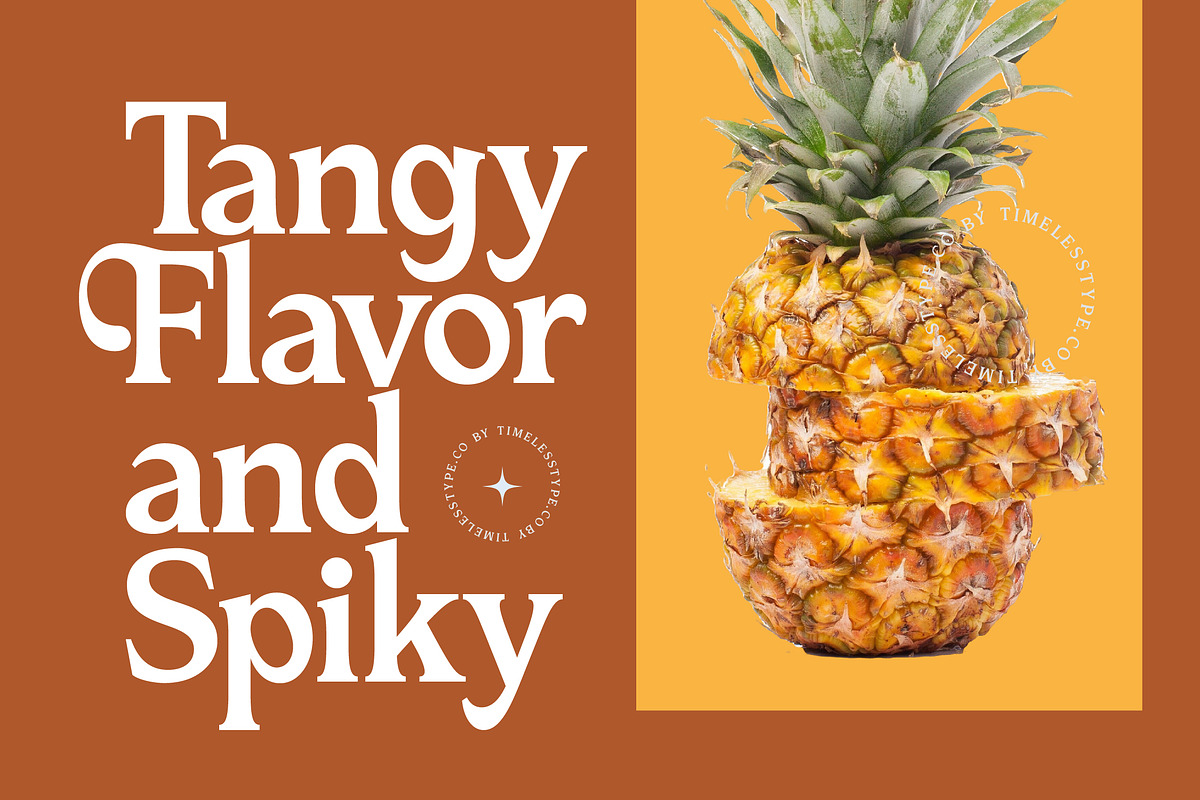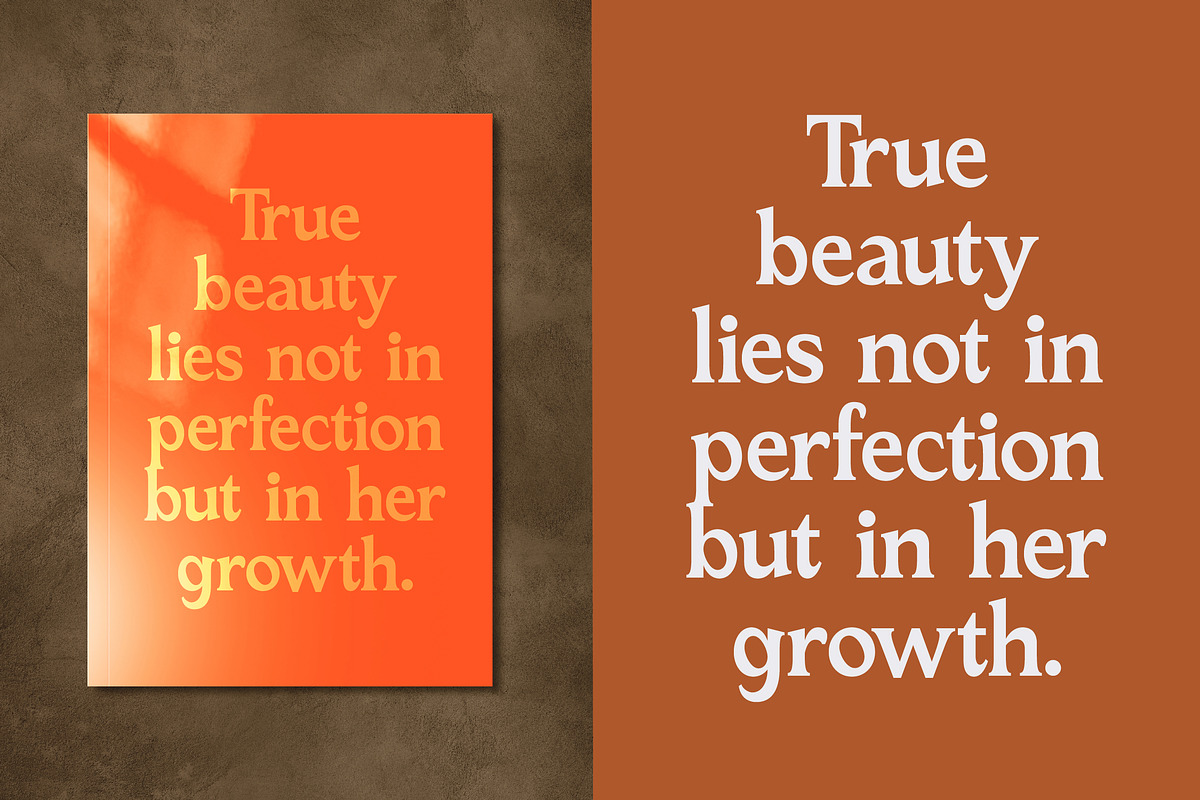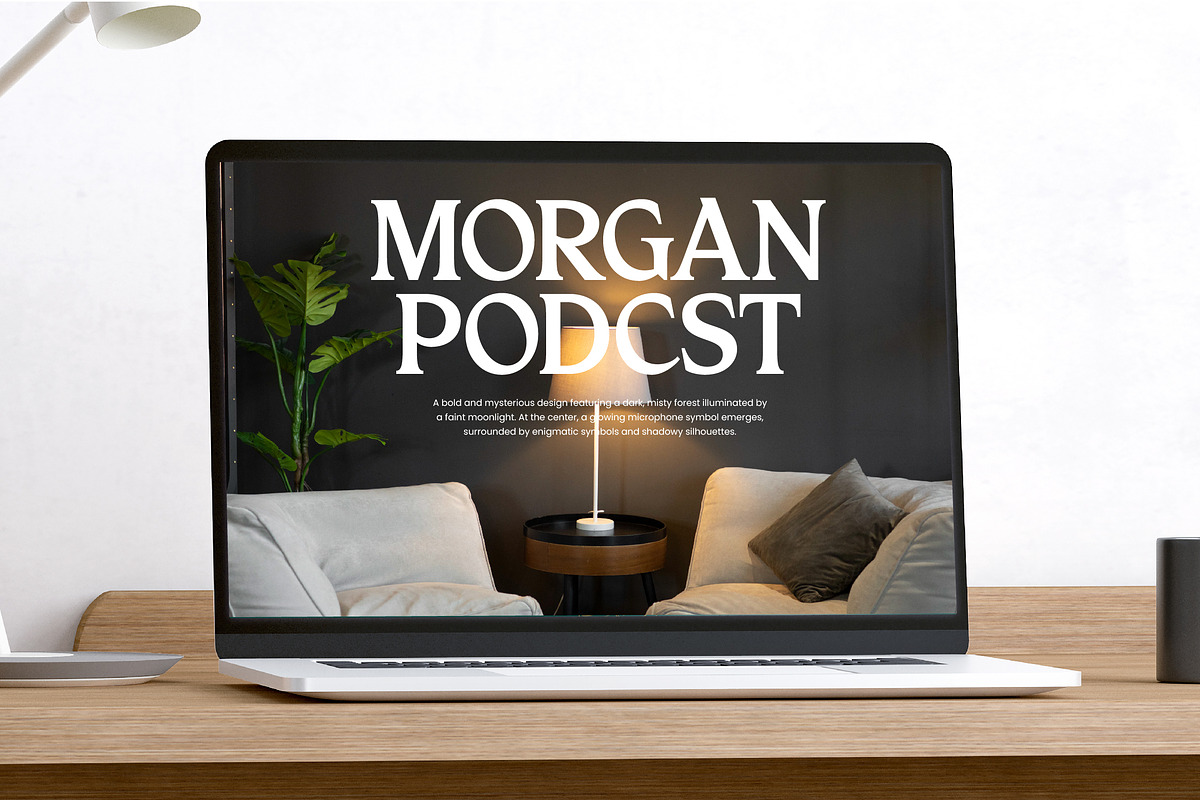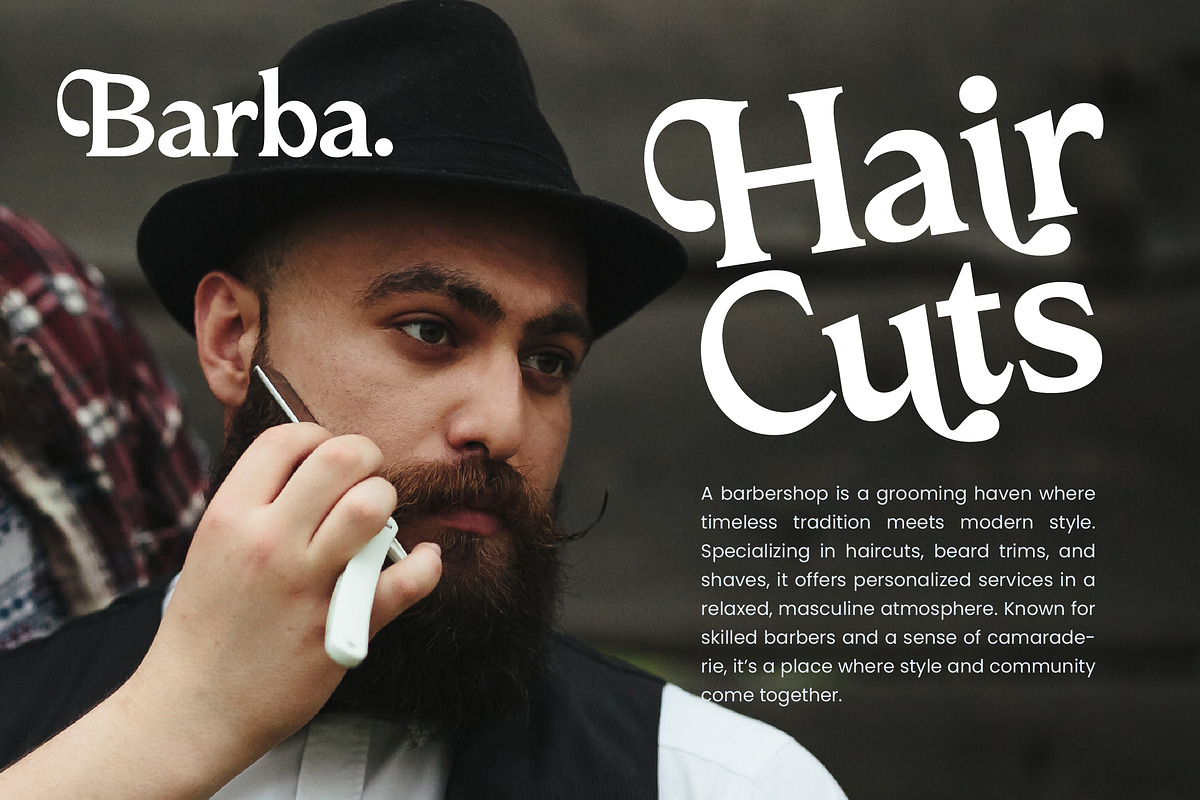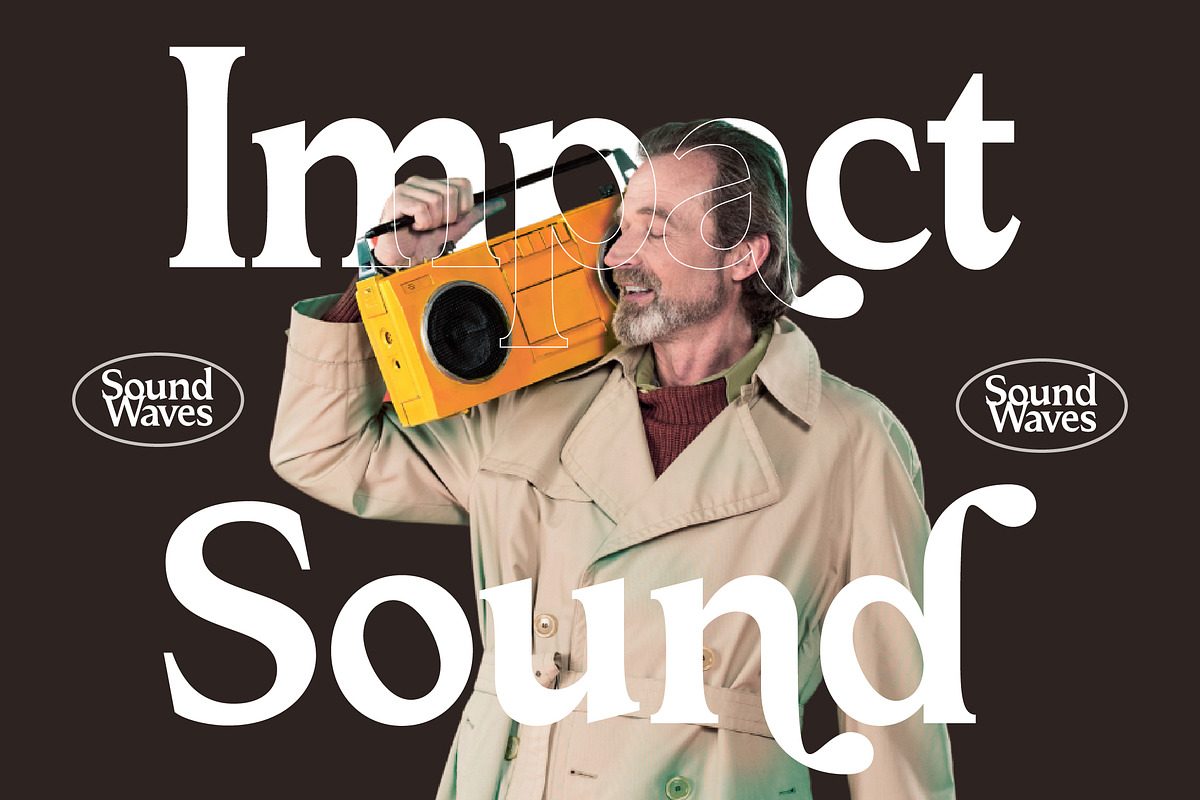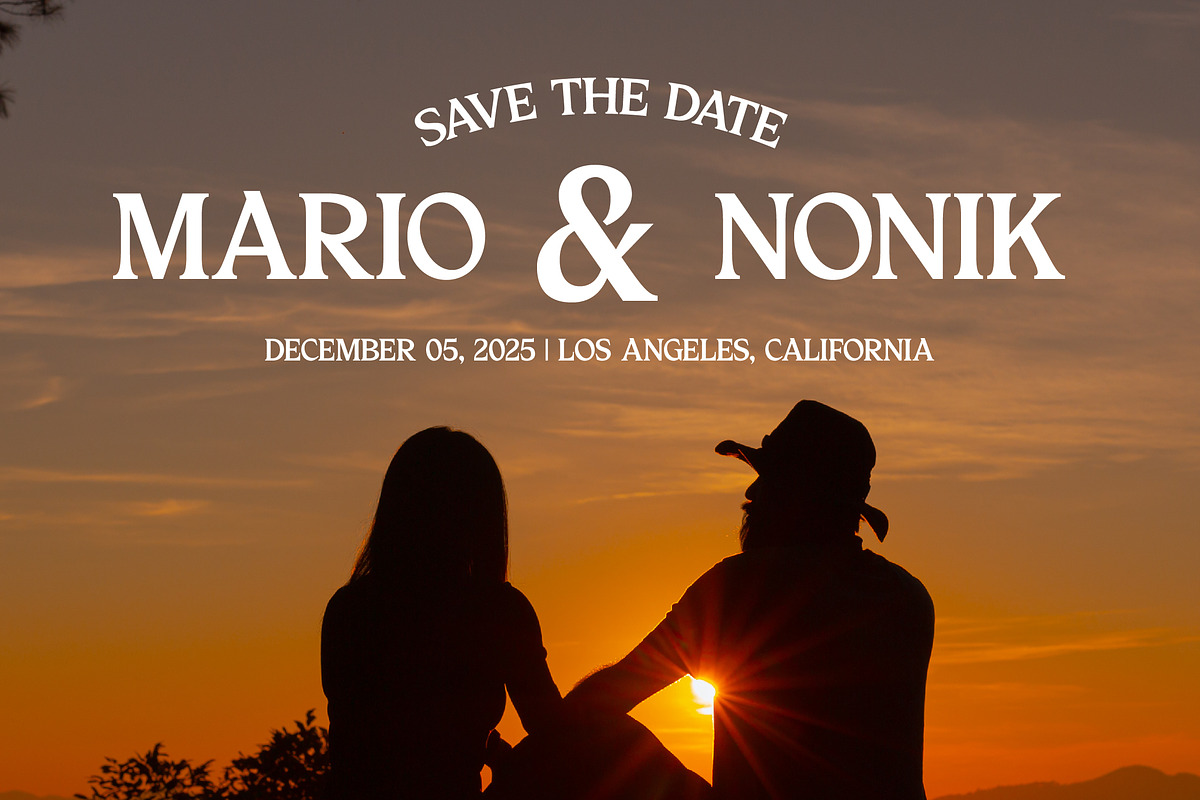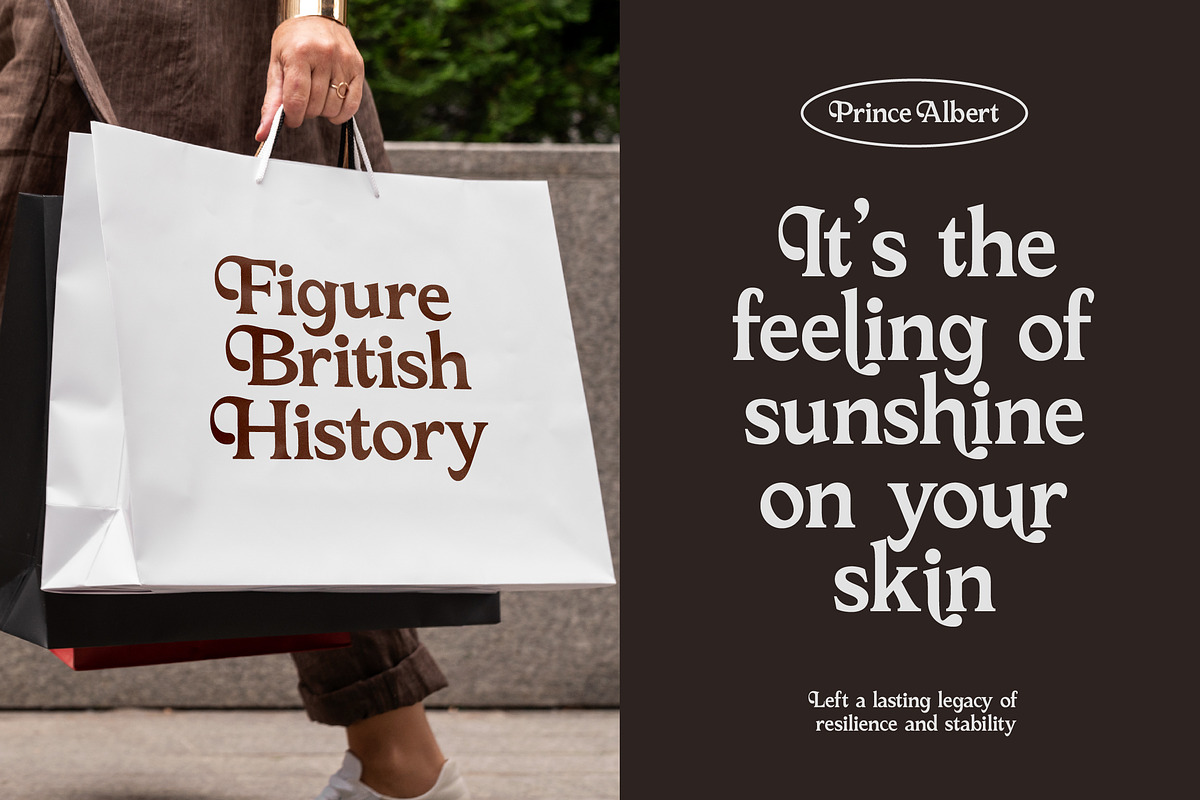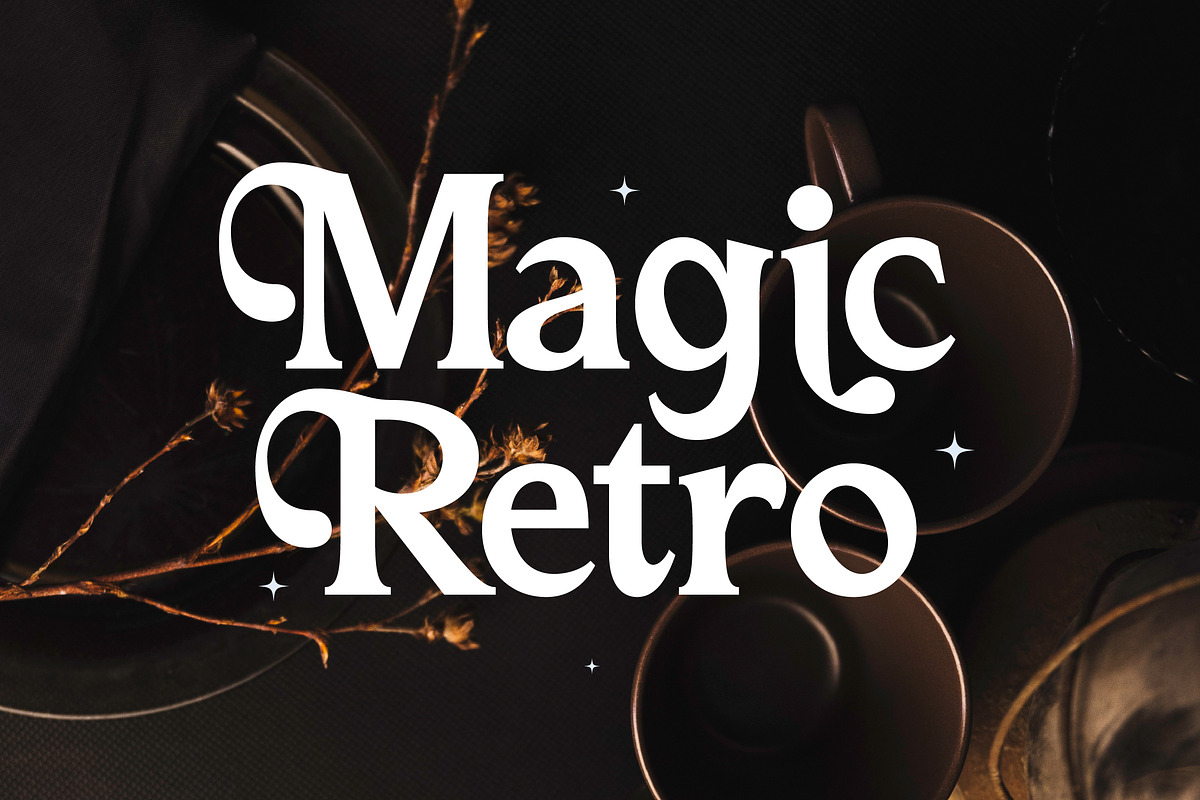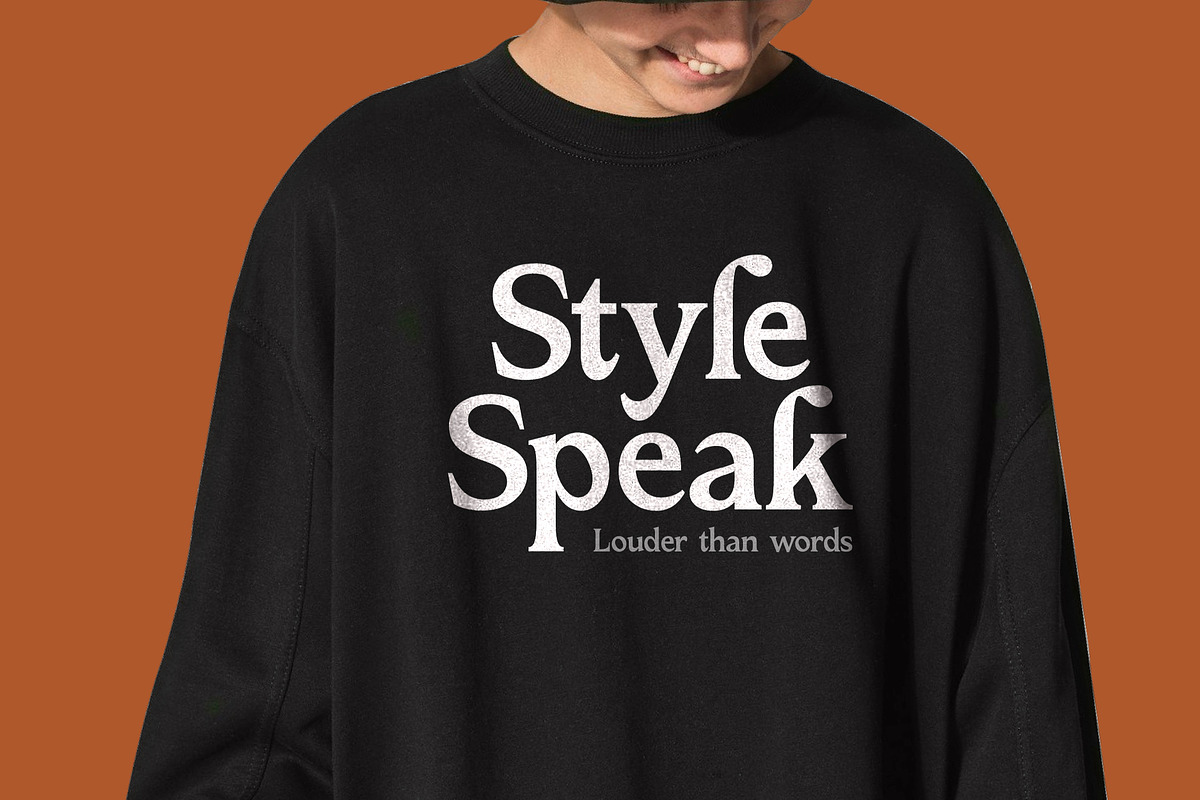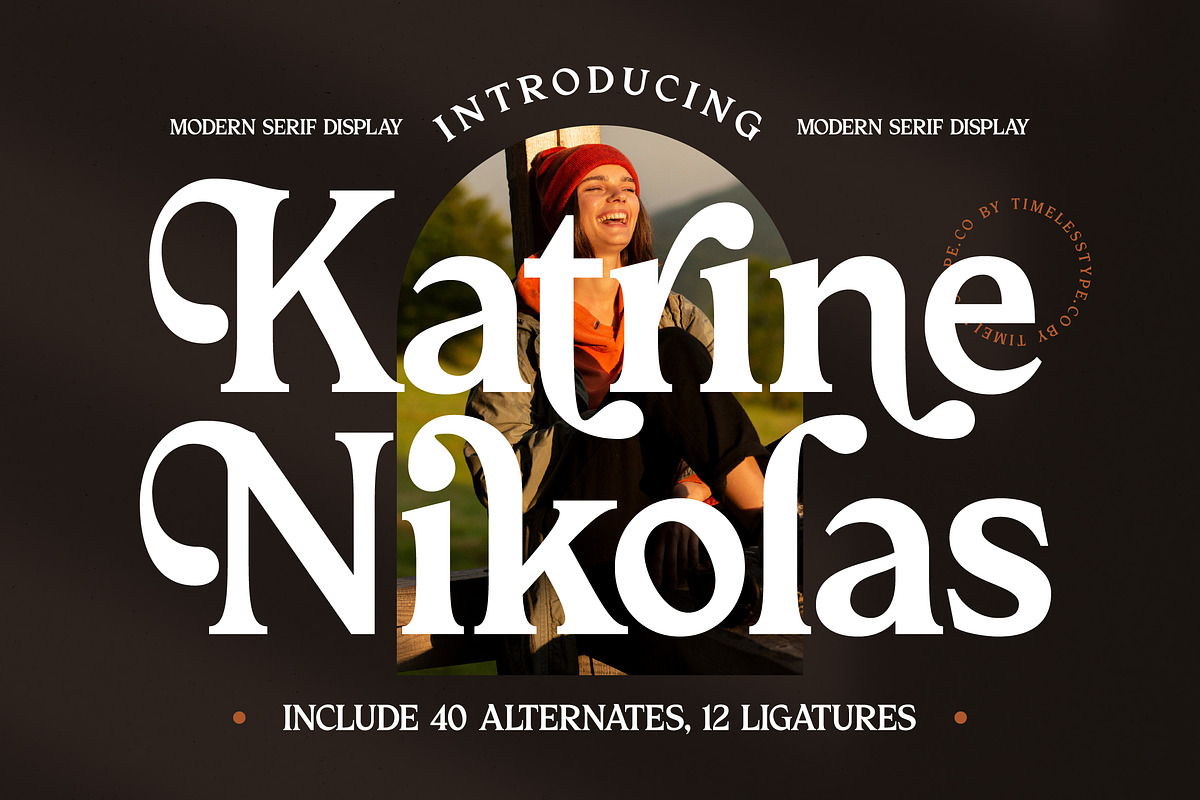
Katrine Nikolas Modern Serif
Elevate your design aesthetic with the timeless elegance of Katrine Nikolas, a font that captures the perfect balance between classic sophistication and contemporary flair. This typeface is more than just a set of letters; it is an invitation to create something truly unforgettable.
Drawing inspiration from the golden age of fashion editorial and the refined curves of boutique architecture, this font evokes a sense of sun-drenched European afternoons and high-end luxury. Its sweeping curves and sharp terminals reflect a world where every detail is curated for maximum visual impact.
Defined by its modern serif display style, this typeface brings an undeniable sense of luxury typography to any project. The high-contrast serif strokes provide a rhythmic flow that ensures an editorial font presence, delivering a powerful branding impact that resonates with premium audiences.
Staying ahead of the modern serif trend, this typeface utilizes editorial display fonts sensibilities to meet the demands of today's aesthetic markets. It champions character-driven typography by offering unique shapes that feel both bespoke and professional, perfect for the modern creator.
This versatile powerhouse is specifically crafted for high-end logo design and comprehensive branding identity systems. Whether you are working on a luxury editorial layout, sophisticated packaging, ethereal wedding invitations, or fashion lookbooks, it adapts seamlessly to provide a touch of class.
Unlock ultimate creative freedom with a vast collection of ligatures and alternates that allow for custom-tailored letterforms. With decorative swashes and full multilingual support including international characters, this font ensures your message is conveyed beautifully across the globe.
- Ligature 12 Alternate 40